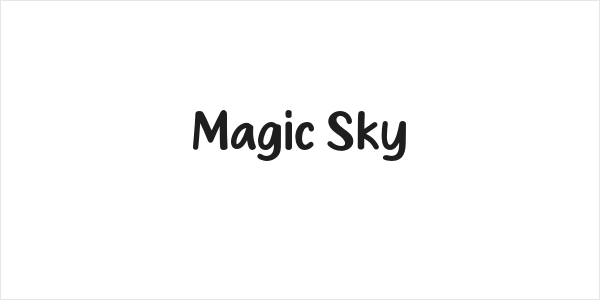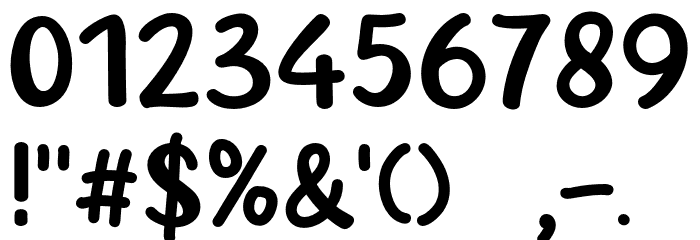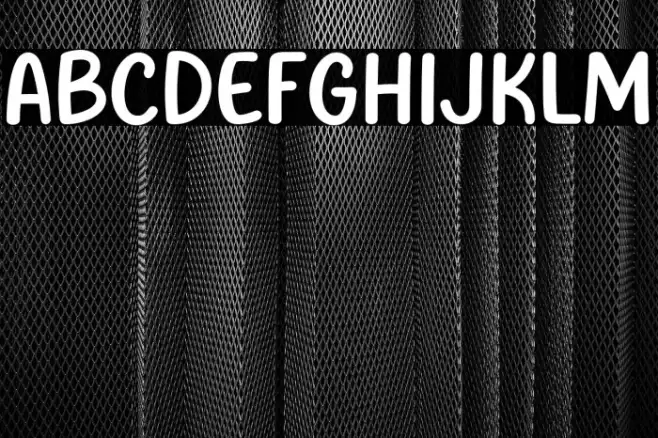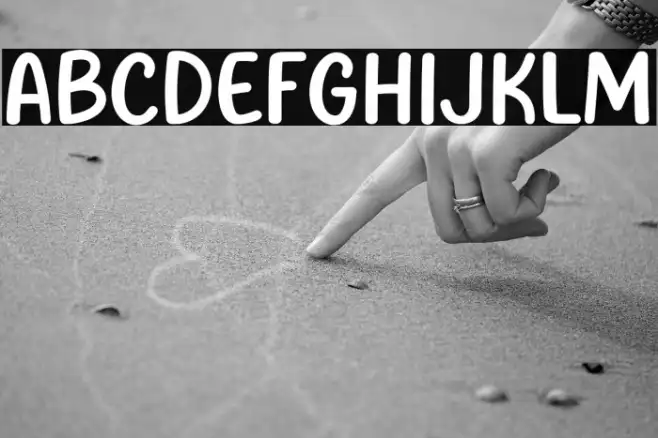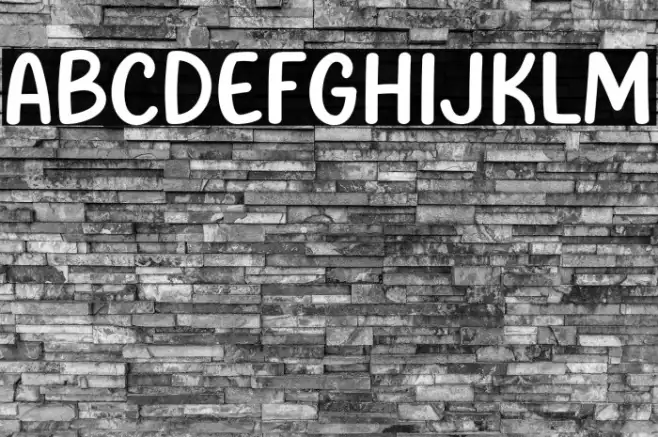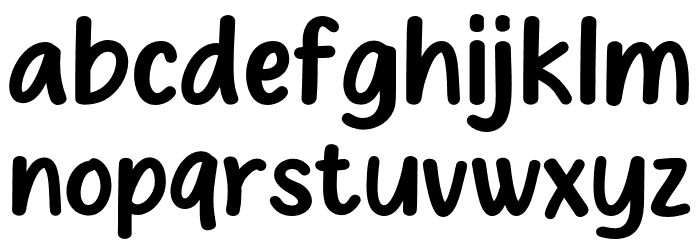
Magic Sky Font
Magic Sky Description
This font features a playful and rounded style, characterized by its smooth curves and friendly appearance. The letters are bold and slightly condensed, giving them a strong presence while maintaining a casual and approachable feel. The lowercase letters have a consistent height, and the uppercase letters are slightly taller, providing a balanced look. The numbers are clear and easy to read, matching the overall style of the alphabet. Special characters are included, maintaining the same rounded and bold aesthetic. This font is versatile, suitable for projects that require a fun and informal touch.
| Width | Condensed |
| Overall Style | Playful |
| Use Case | Headlines, Logos, Informal Text |
| Proposed Projects | Ideal for children's books, playful branding, casual invitations, and social media graphics. |